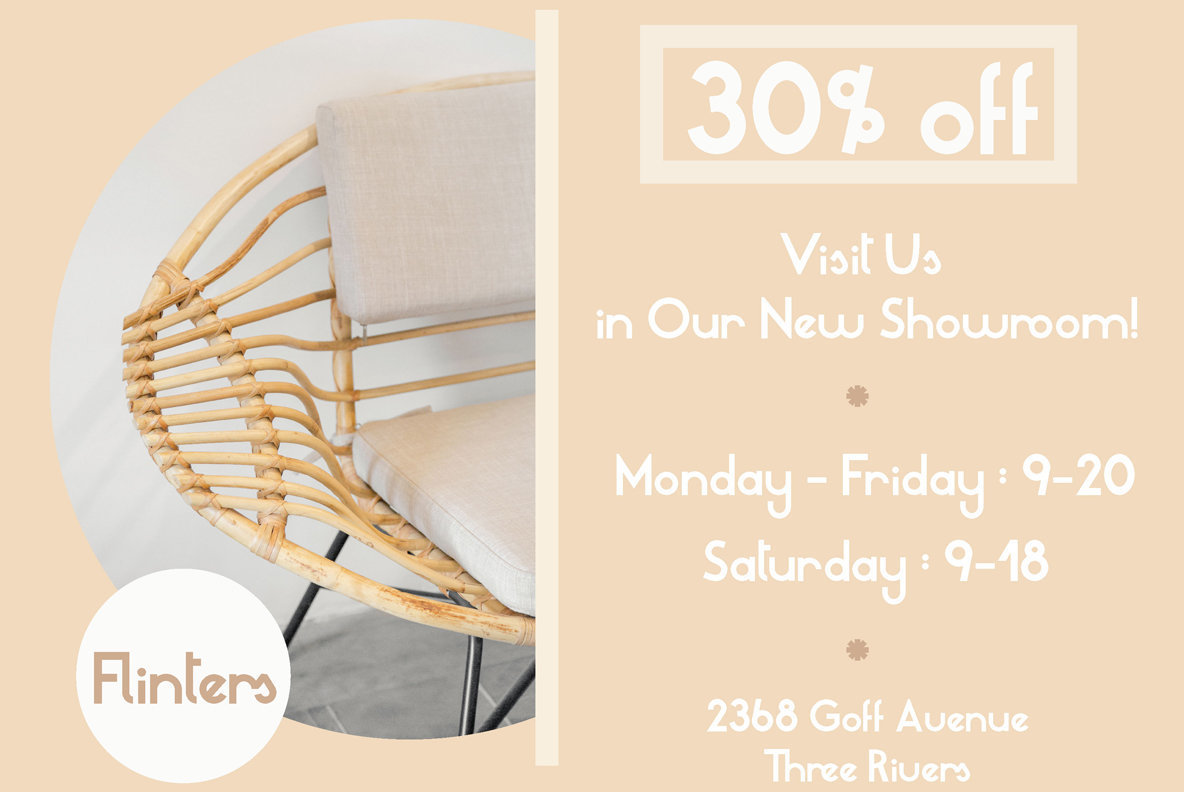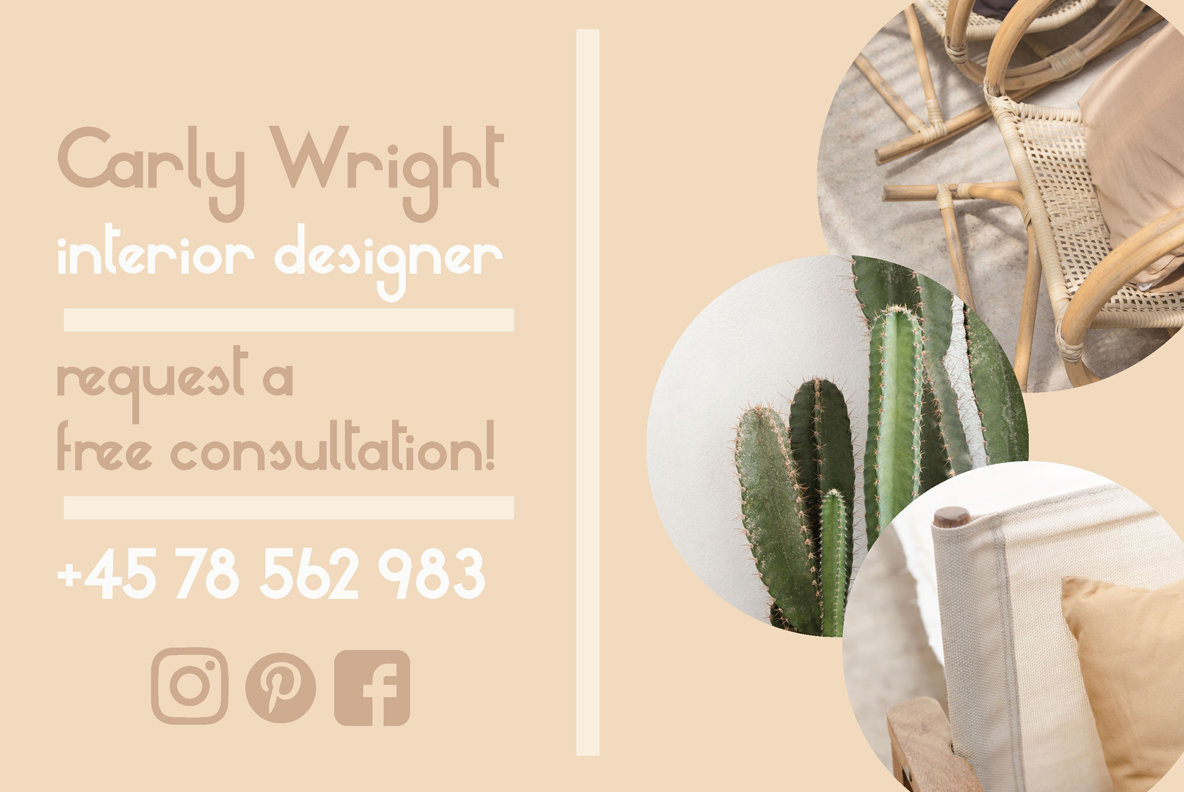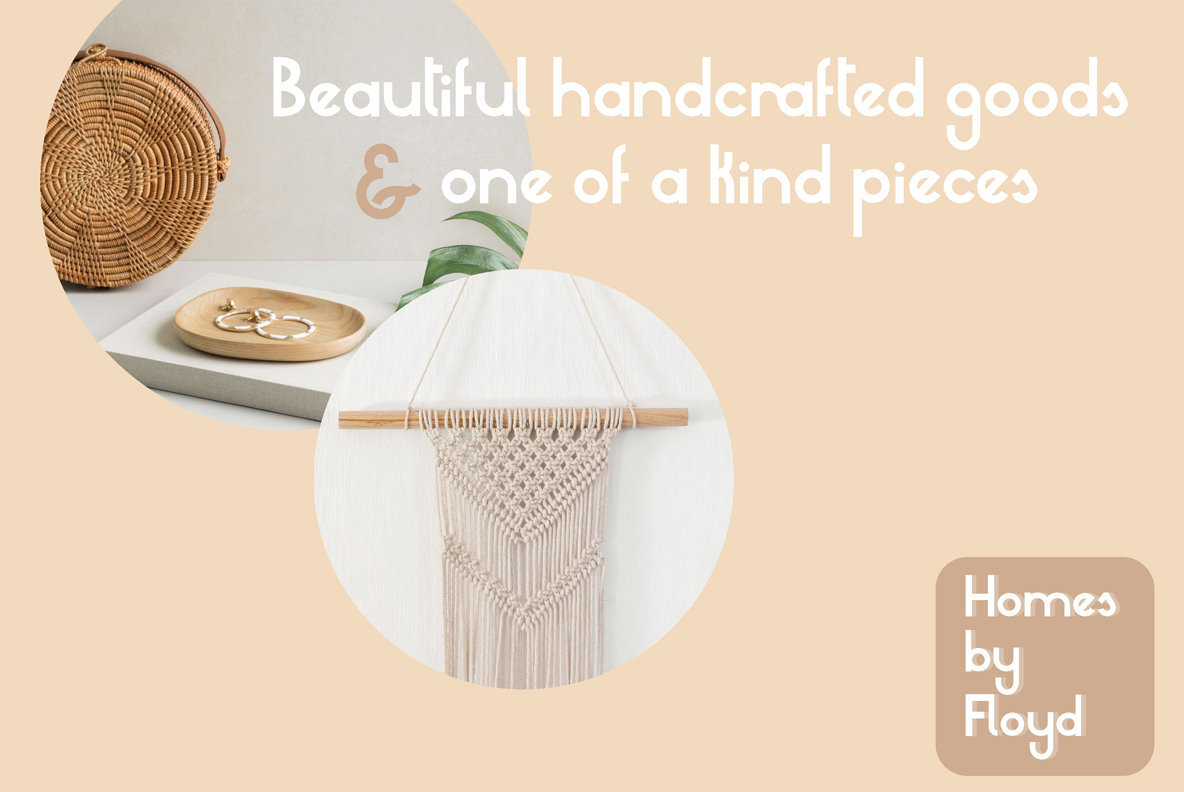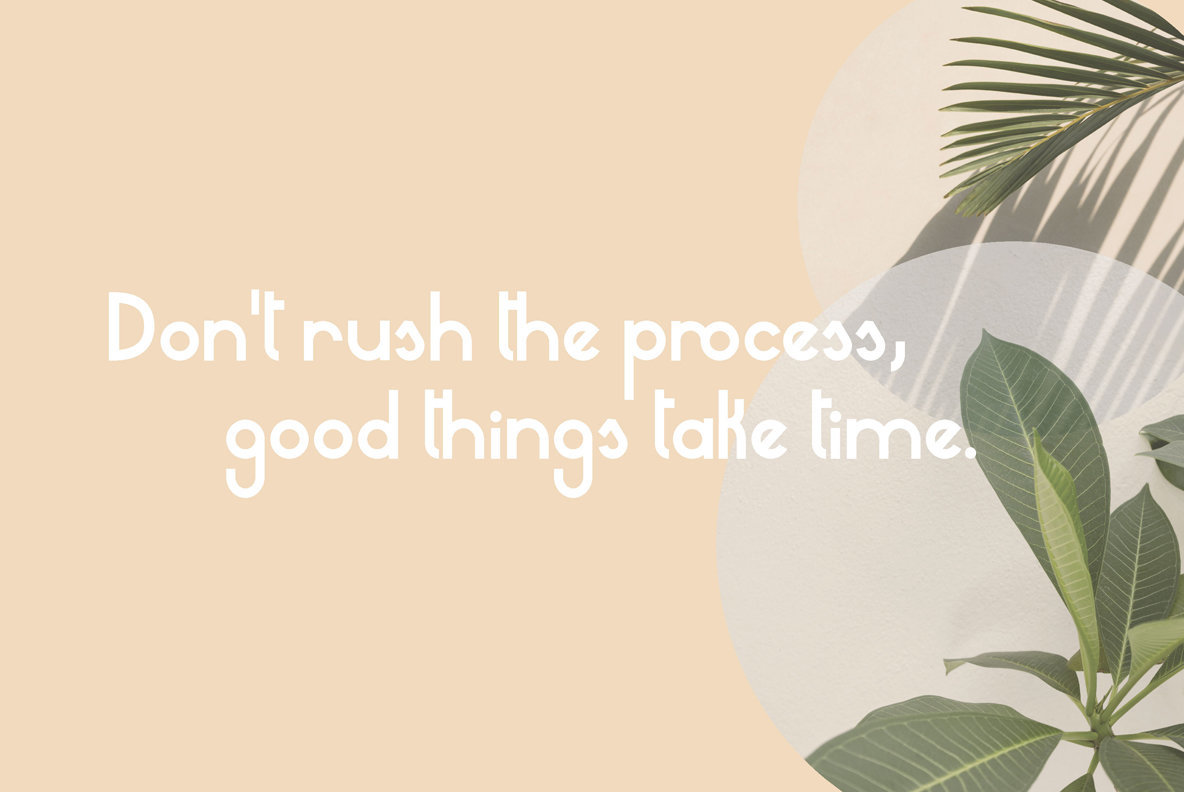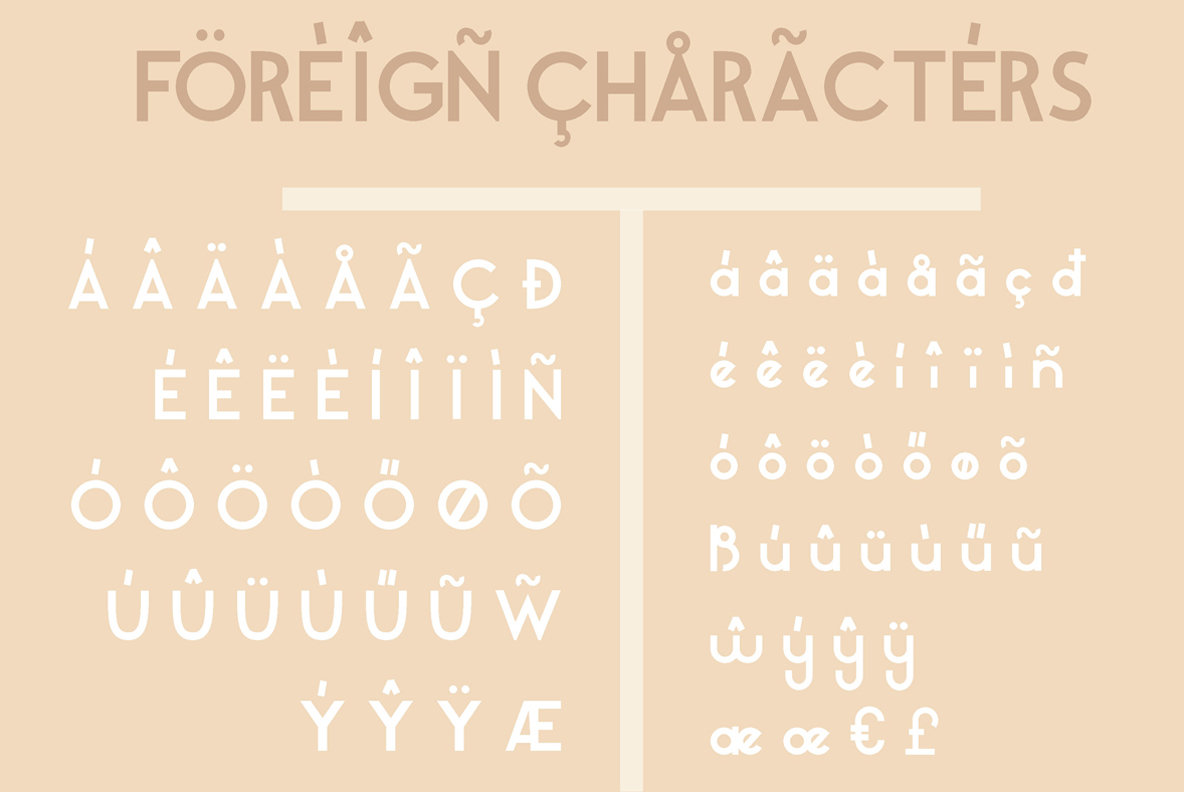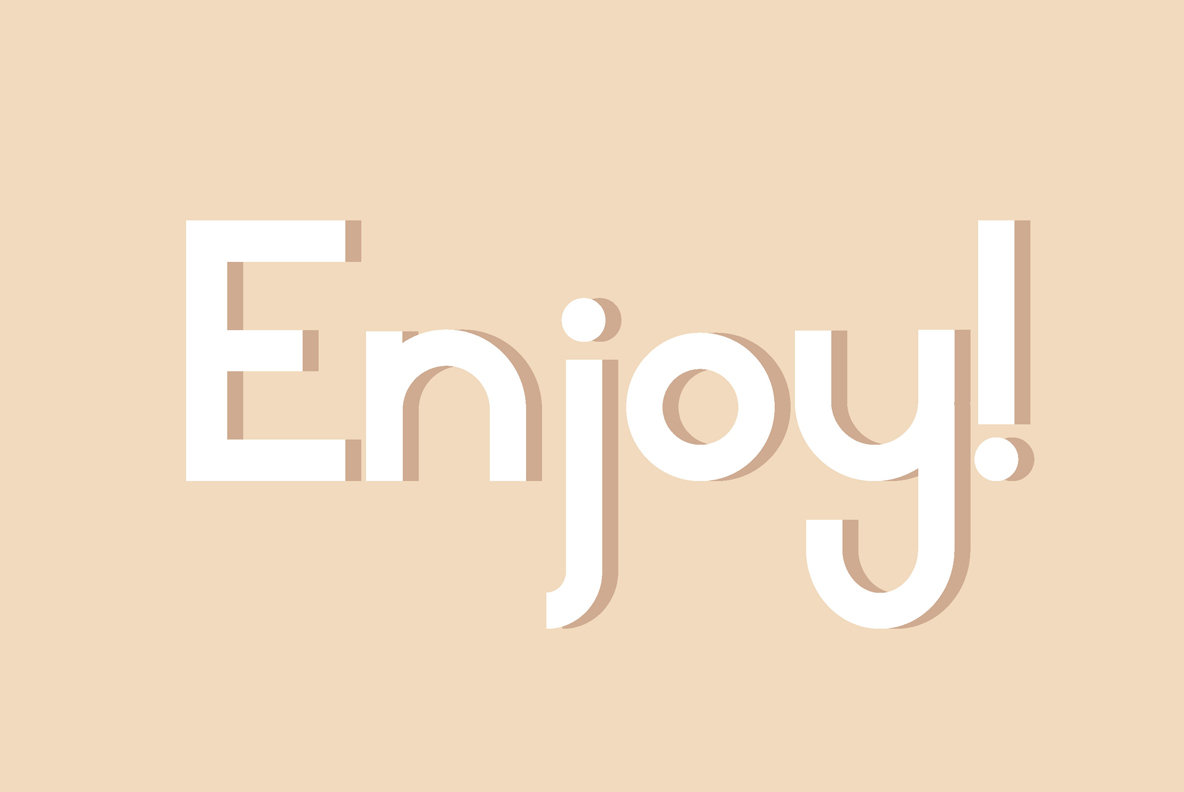
Floyd the Great Font
Floyd The Great
Floyd the Great is versatile, simply beautiful sans-serif ready to make your branding dreams come true.
Perfect for stationery, website design, for logos but also works great as a wedding invitation font.
It's easy to use in multiple contexts and works super well for branding suites.
Non-English character support included, please see all characters in the display or try the font below!